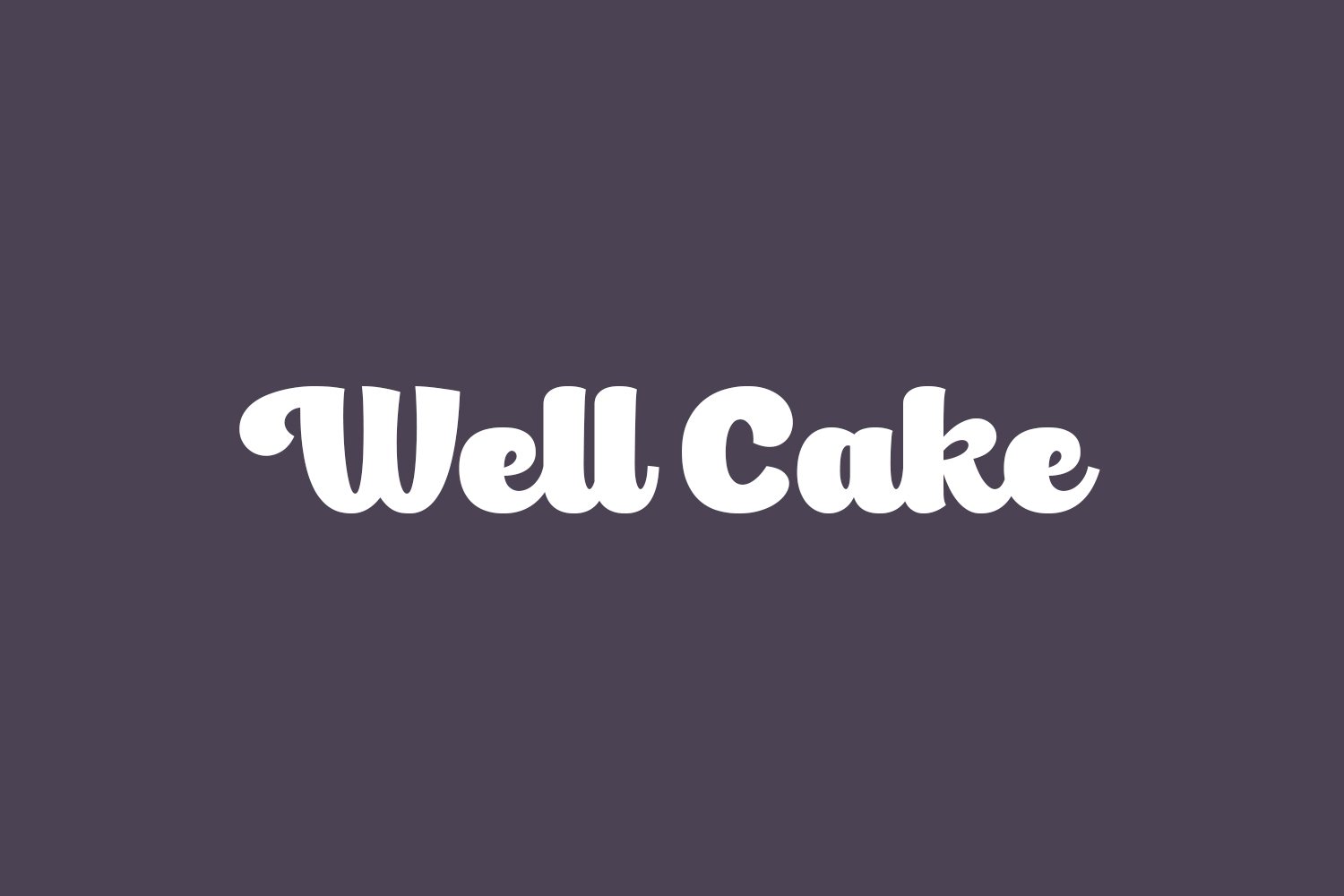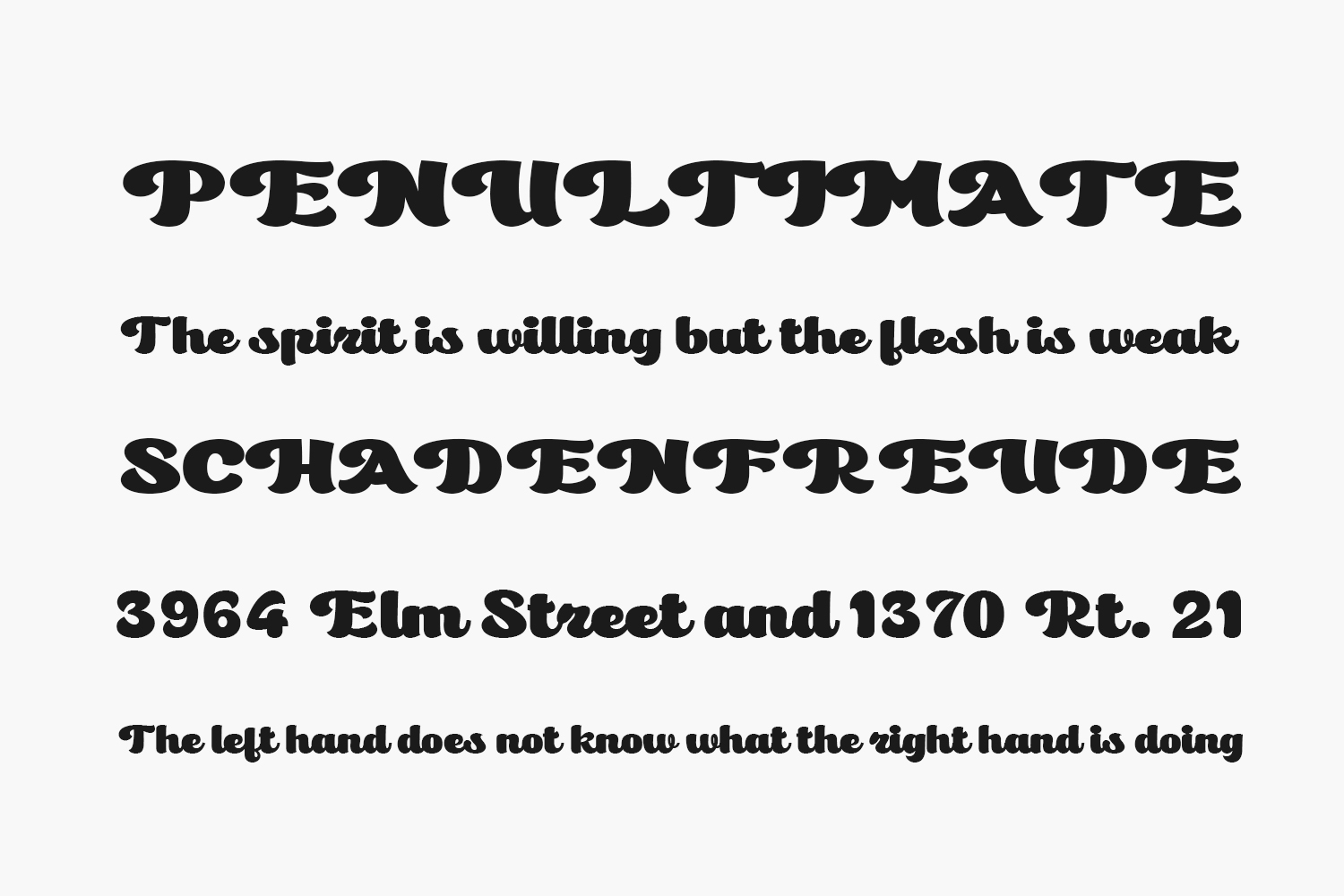
Well Cake Free Font is a trendy and thick lettered handwritten font, featuring a retro vibe. Well Cake Free Font is free for personal use only. Please purchase the full version for commercial use.